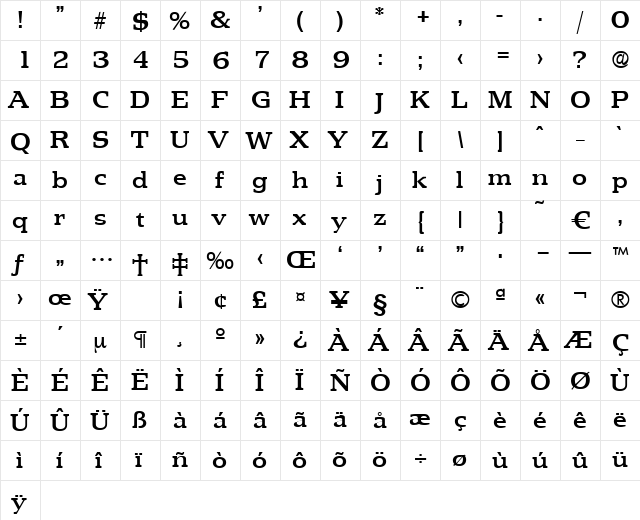
Penthouse-Medium Regular
Design Context for Penthouse-Medium Typeface
Penthouse-Medium offers clean, dependable letterforms without strong stylistic allegiance, making it a practical choice for designers who need flexibility.